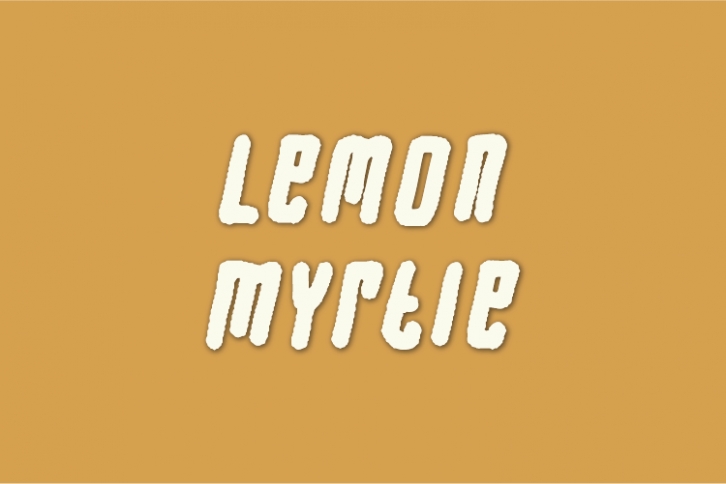
Lemon Myrtle is a natural display font made without changing a single node in each character’s indentation, which makes this font interesting and unique. This lovely typeface is perfect for quotes, notes, tees, or anything else.